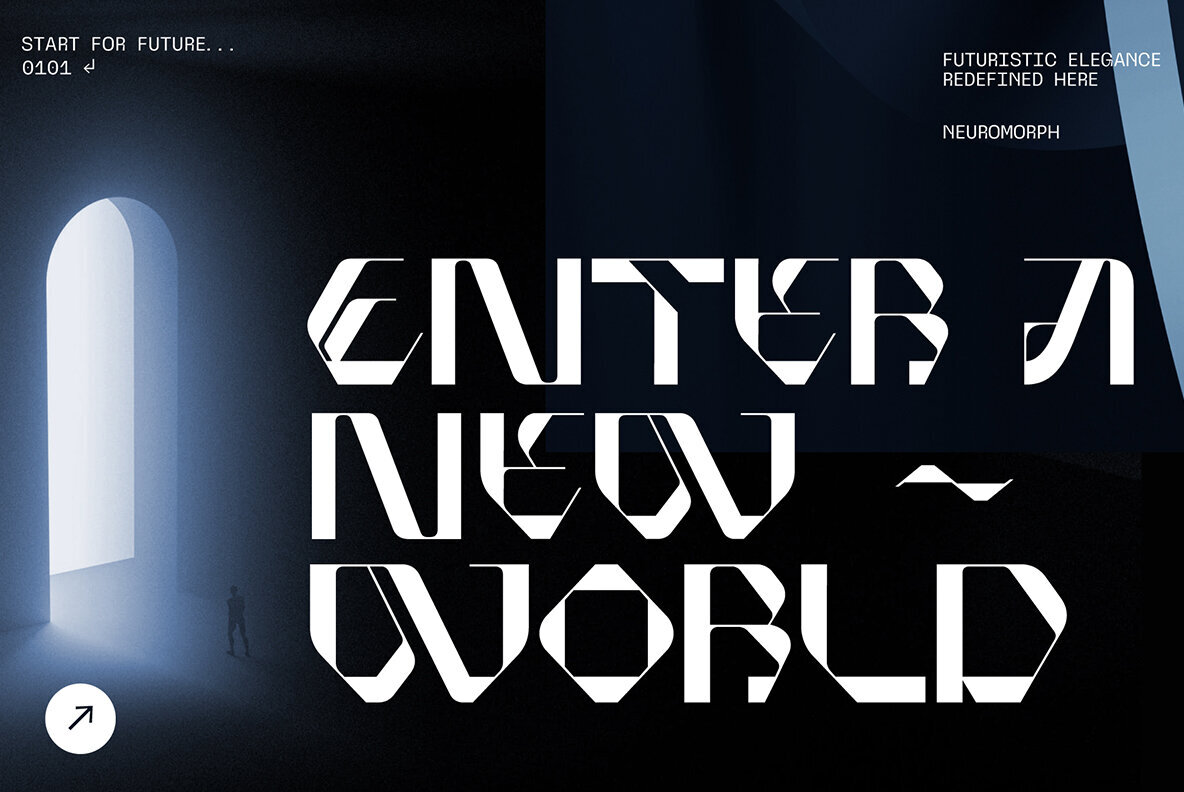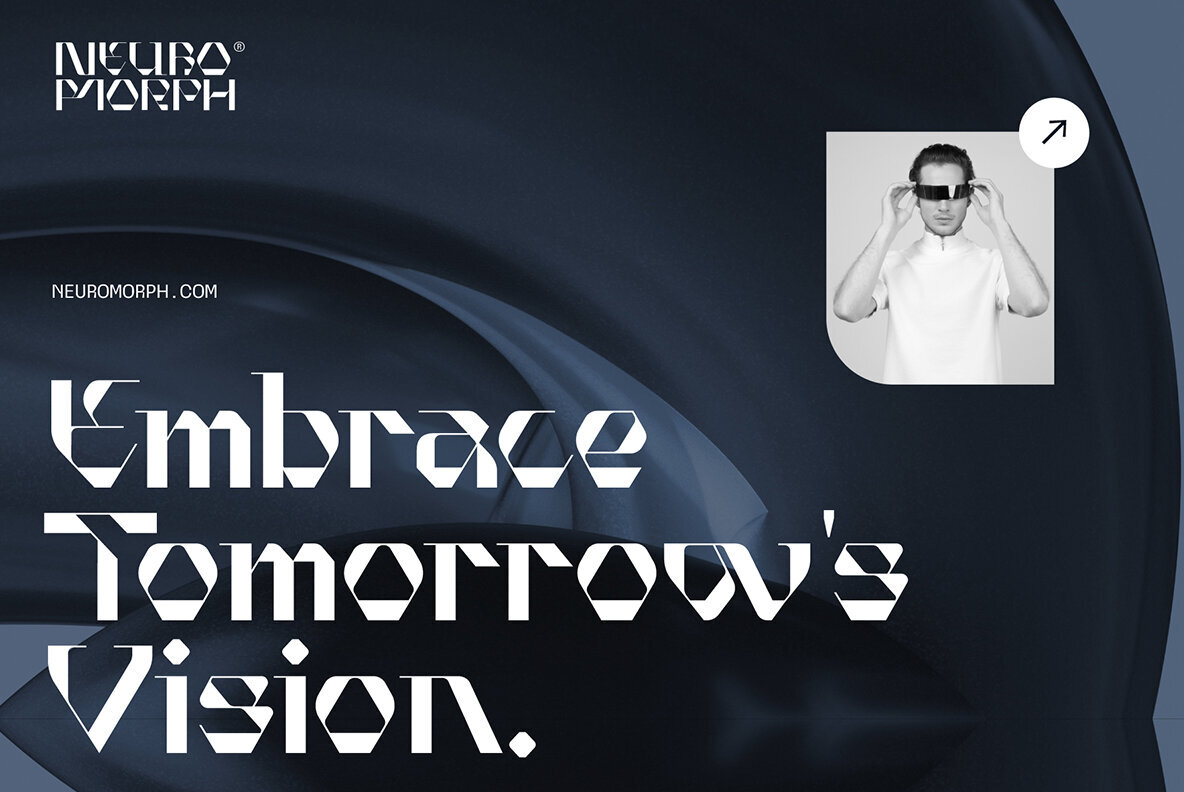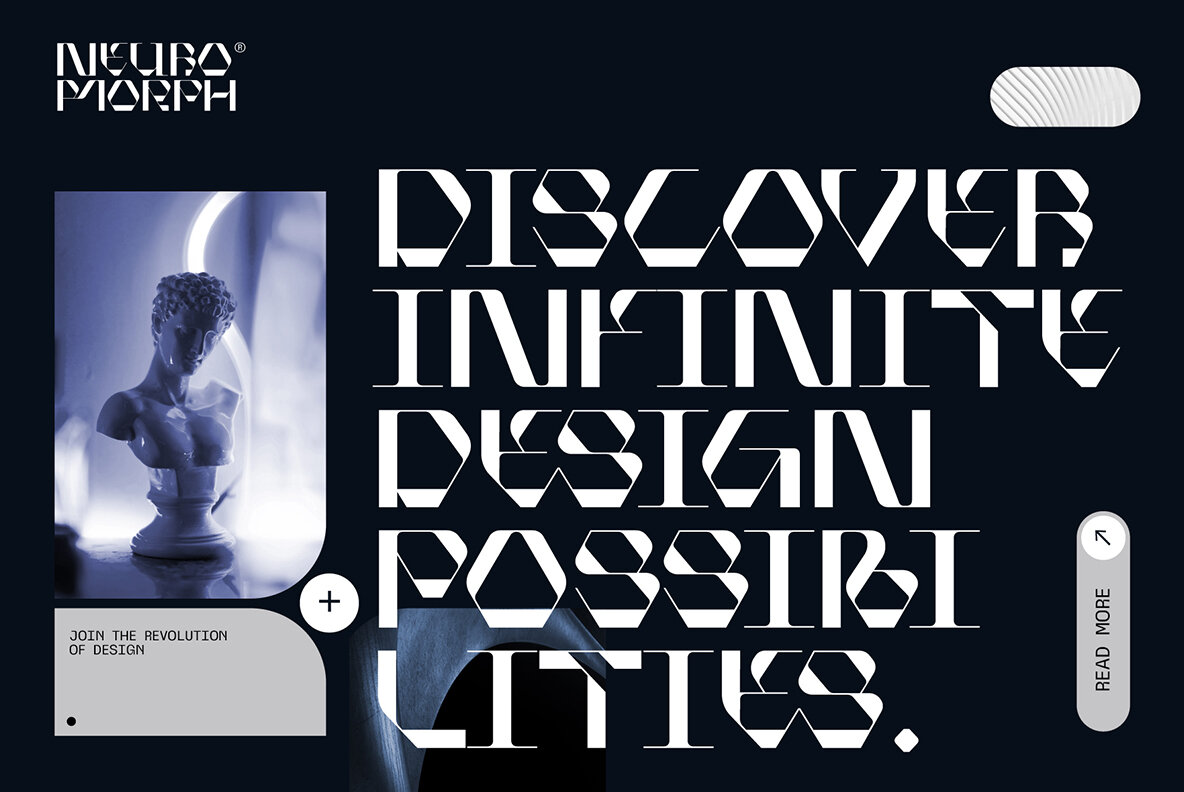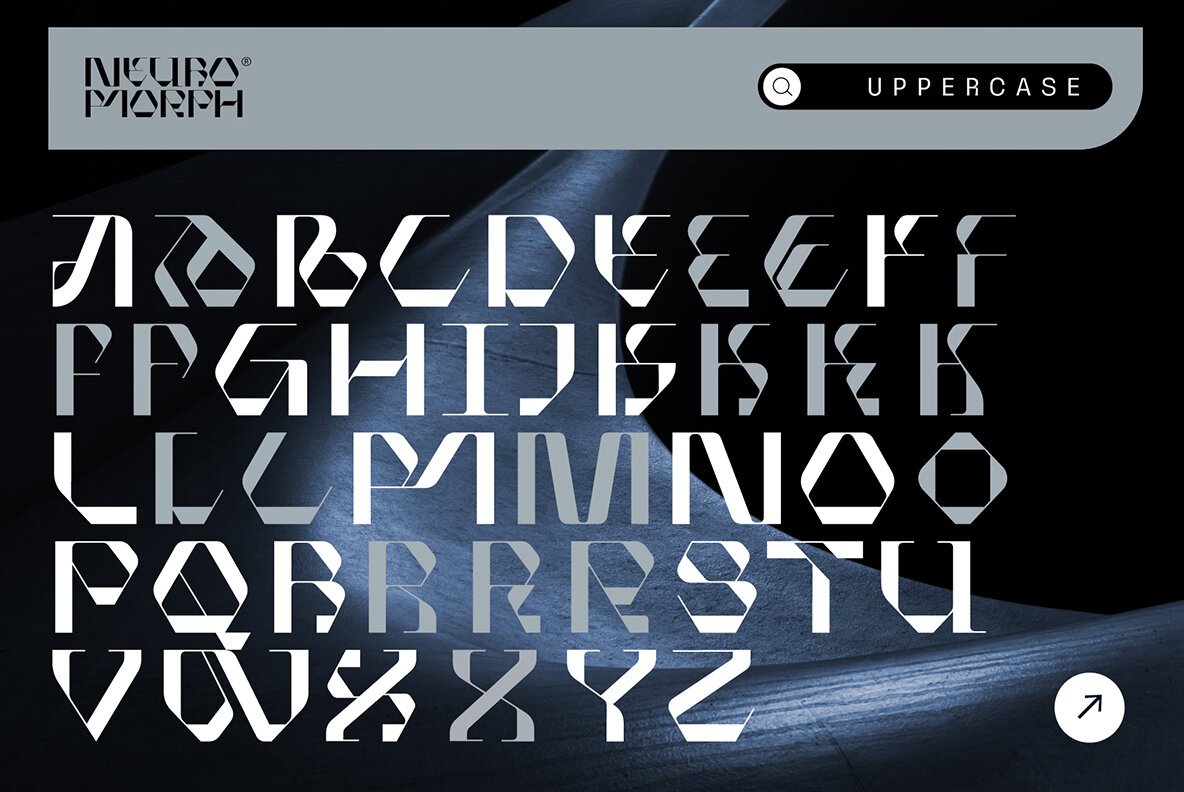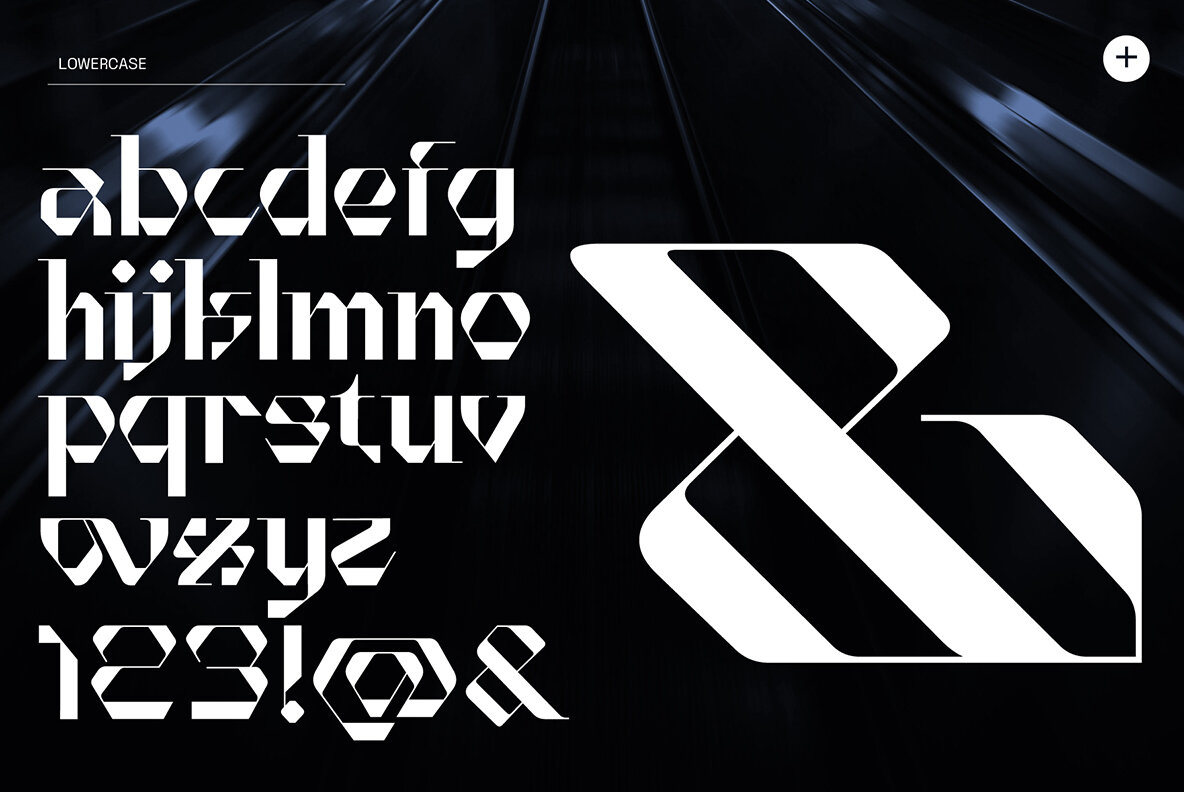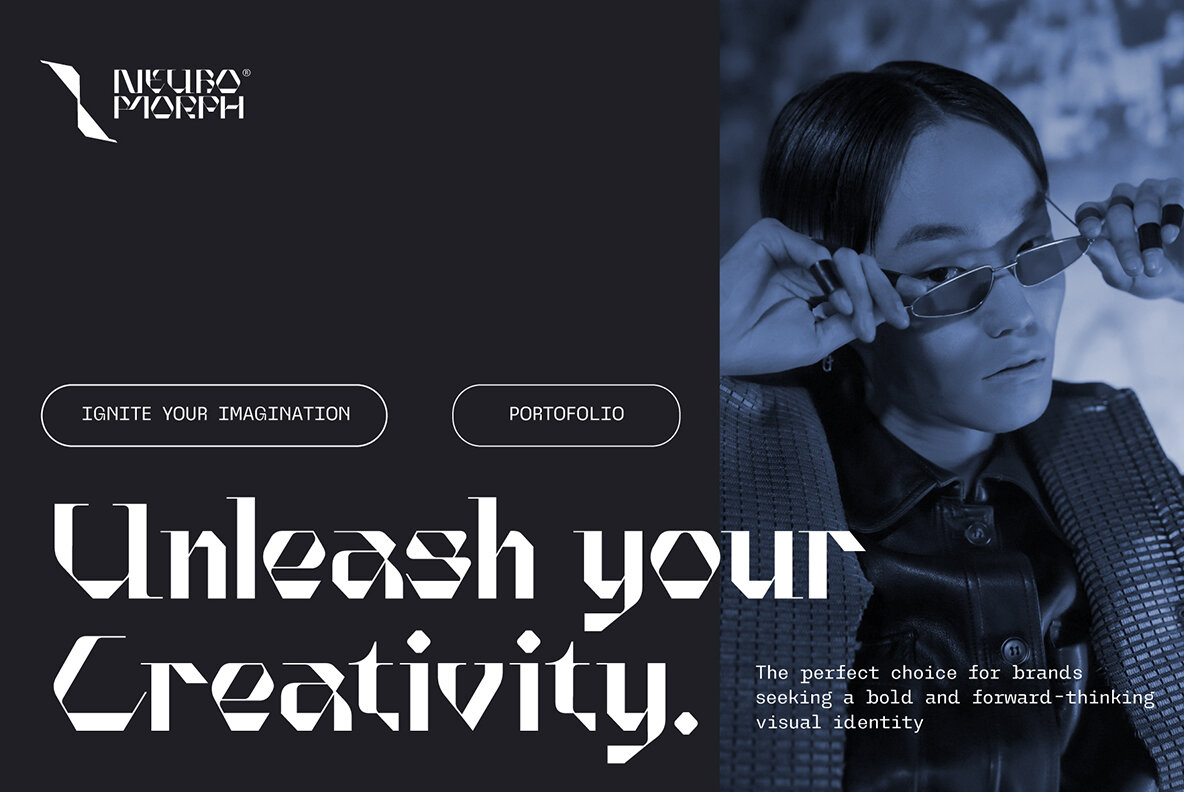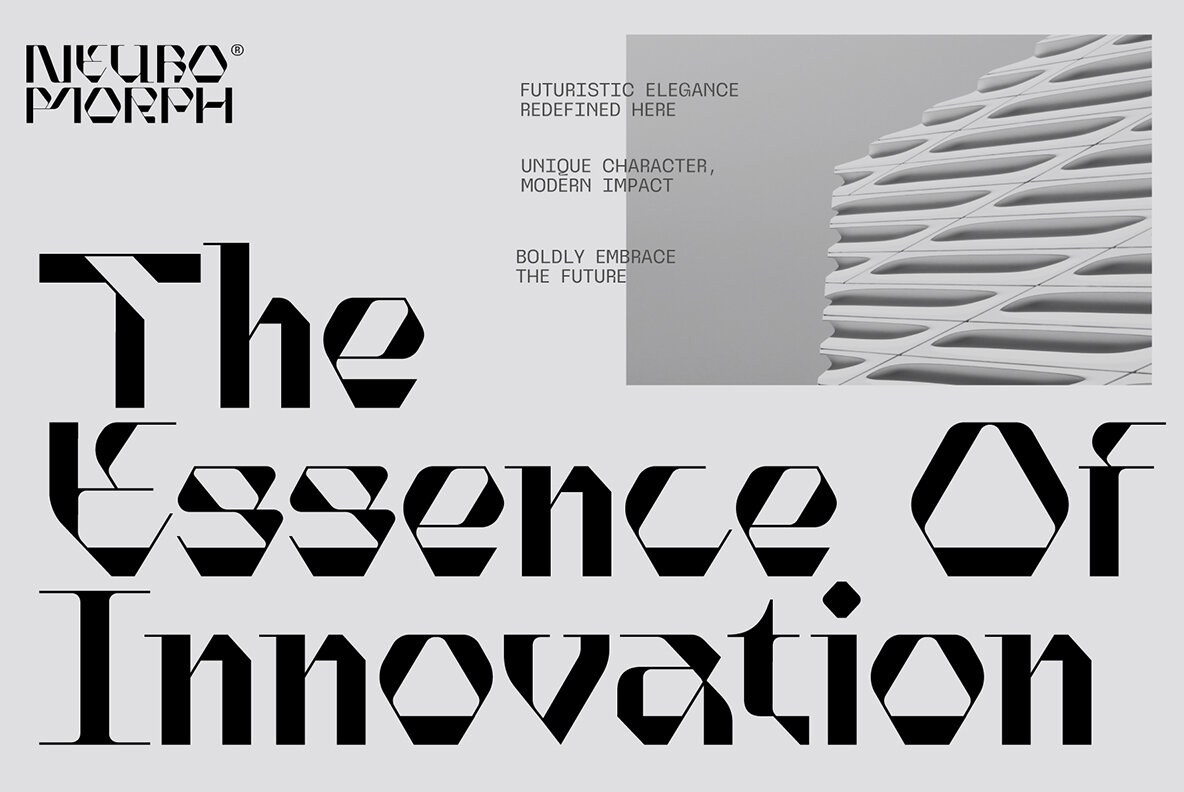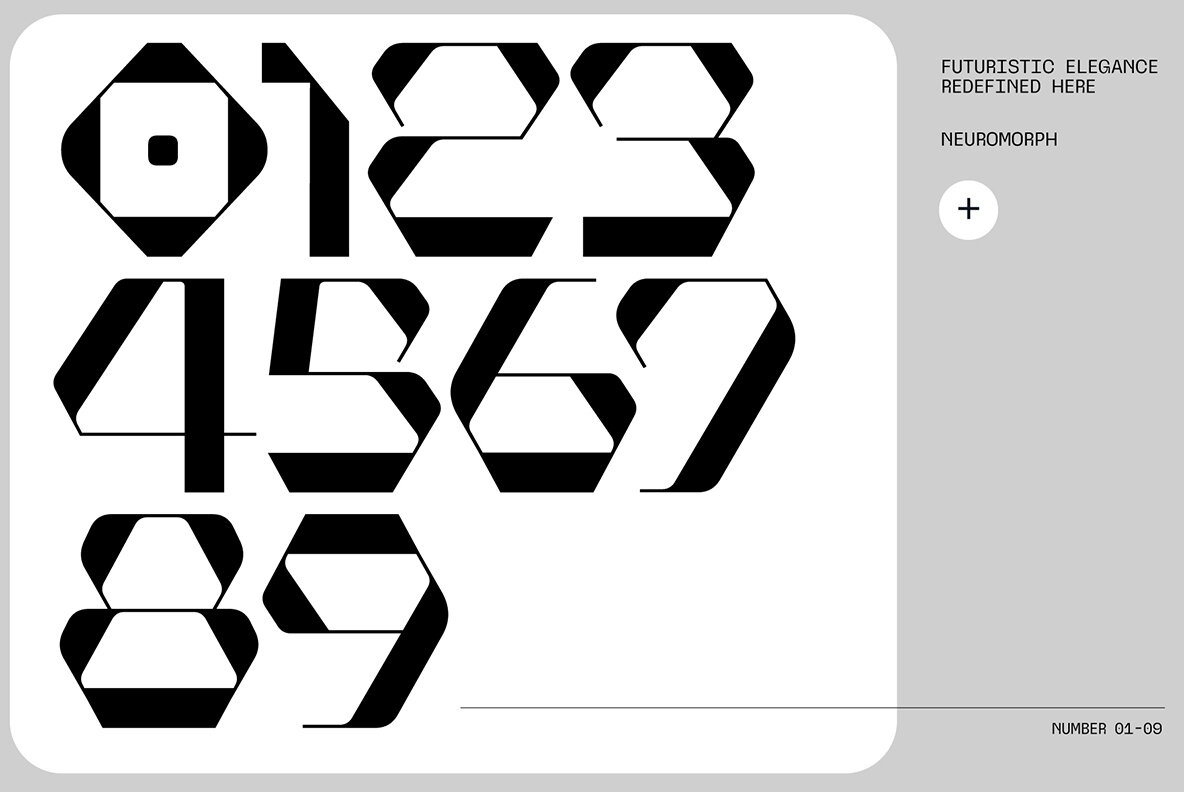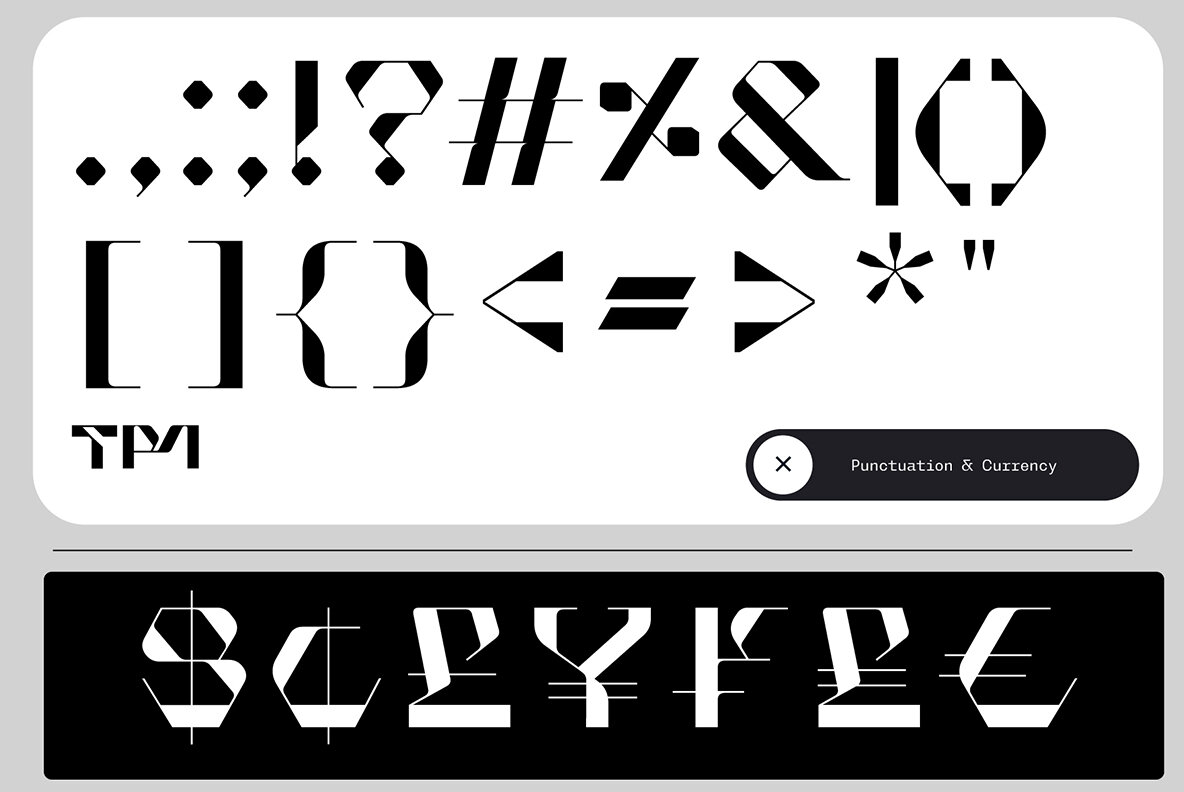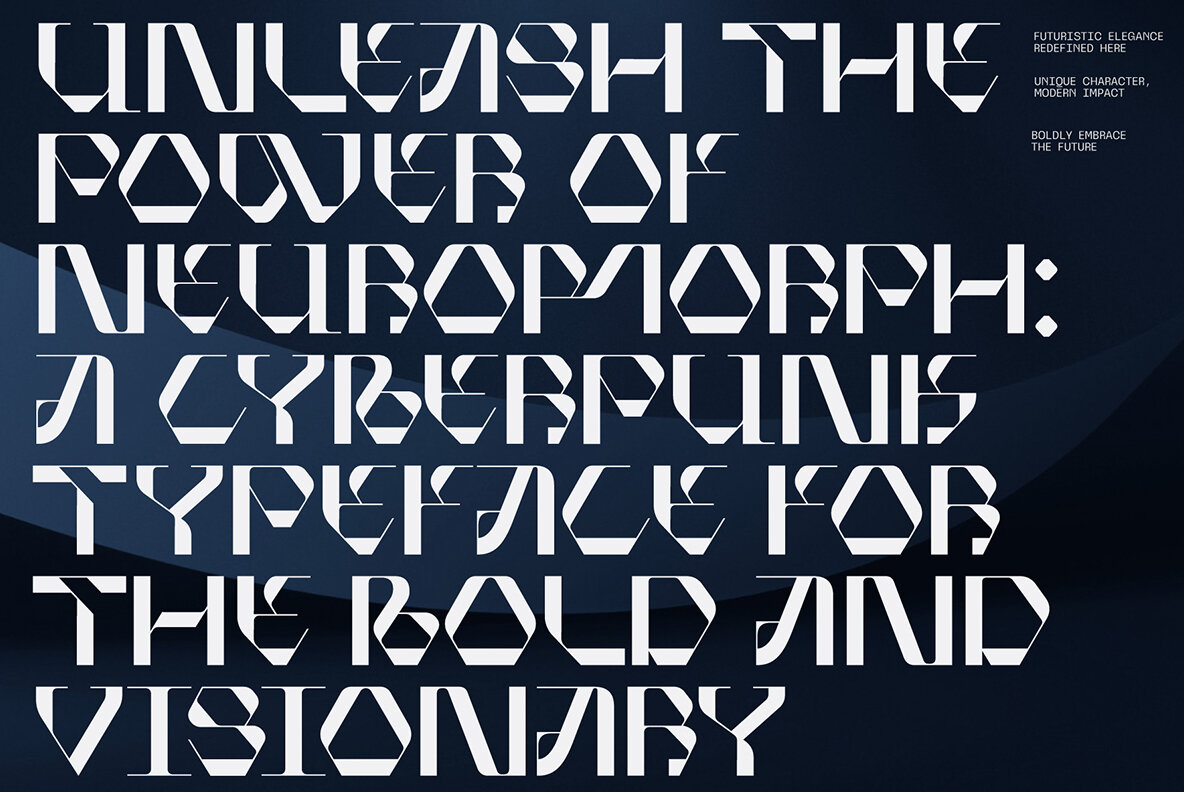
Neuromorph Font
Neuromorph Regular
Neuromorph is a groundbreaking font that encapsulates the essence of tomorrow. With its sleek and futuristic design, it takes typography to a whole new level. Each character is carefully crafted, boasting distinct lines and shapes that exude a sense of innovation and sophistication. This font is a visual representation of boldness and creativity. Its unique character set sets it apart, making it an ideal choice for those seeking to make a statement. Whether used in headlines, logos, or advertisements, Neuromorph captivates the audience’s attention and leaves a lasting impression. Neuromorph’s versatility shines through as it seamlessly adapts to various industries and design projects. From technology to fashion, art to entertainment, it effortlessly blends with any context, enhancing the overall visual impact. Its ability to evoke emotion and intrigue makes it an invaluable tool for forward-thinking brands and individuals.